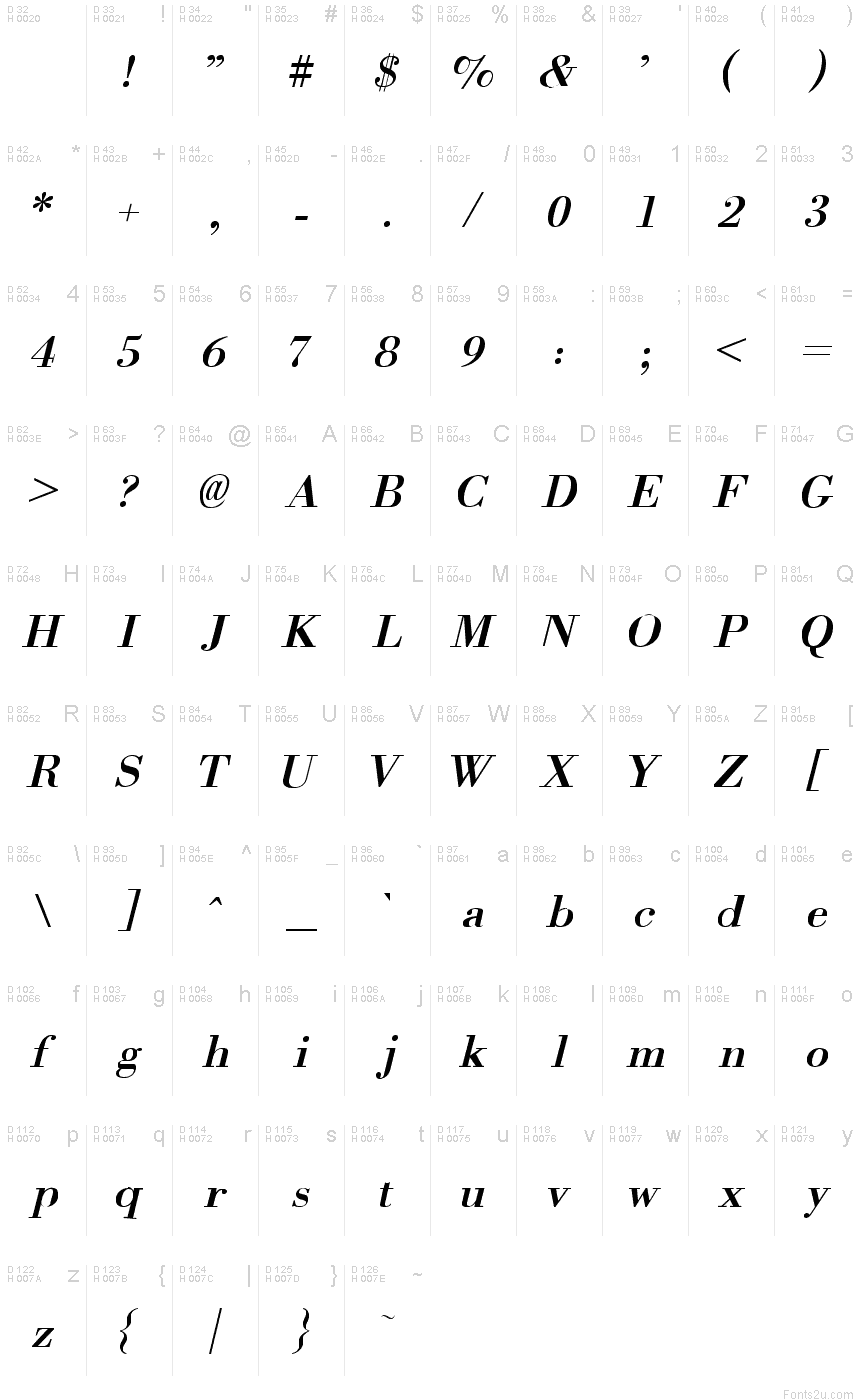
Orgreave Italic
Orgreave Italic by Roger White is a free high-contrast italic serif with broad, swelling curves and sharply tapered hairlines. Its dramatic slant gives the lettering a quick, assured sweep.
Fashion magazine covers are its clearest home, where the exaggerated stroke changes can turn a title into an image. It also suits perfume packaging and luxury branding, especially when an elegant but forceful voice is wanted. The sweeping forms also suit theatrical publishing rooted in romance or period drama.